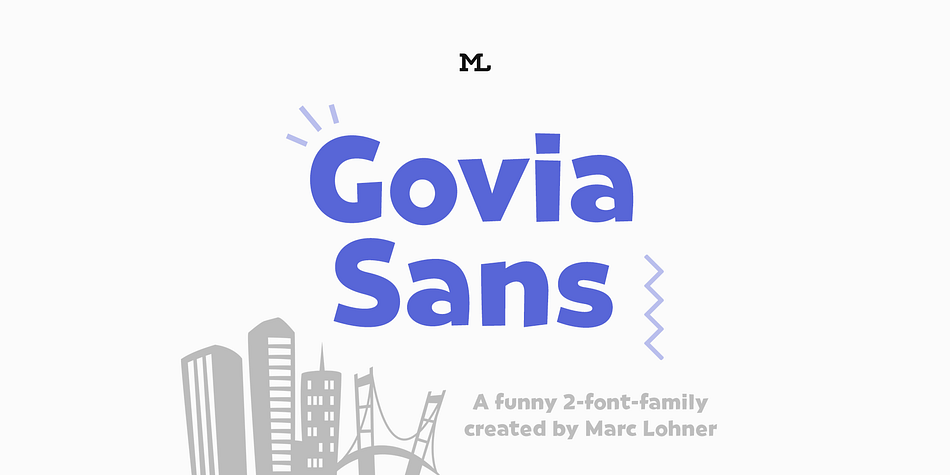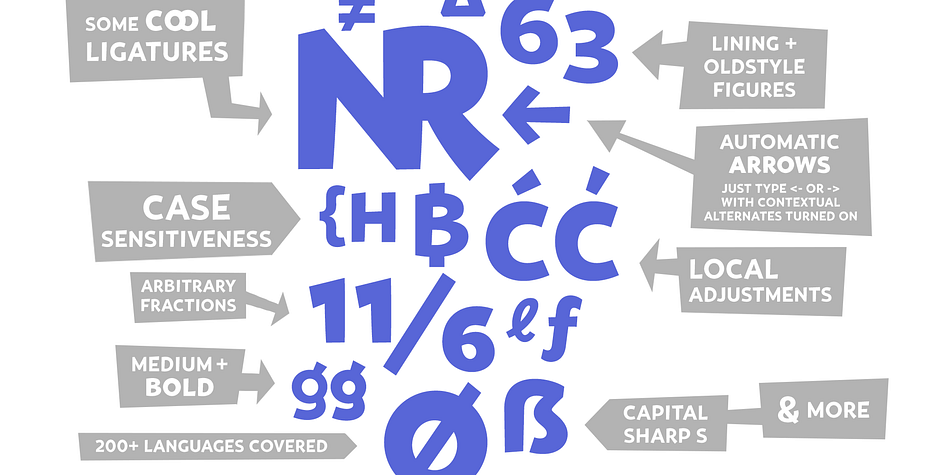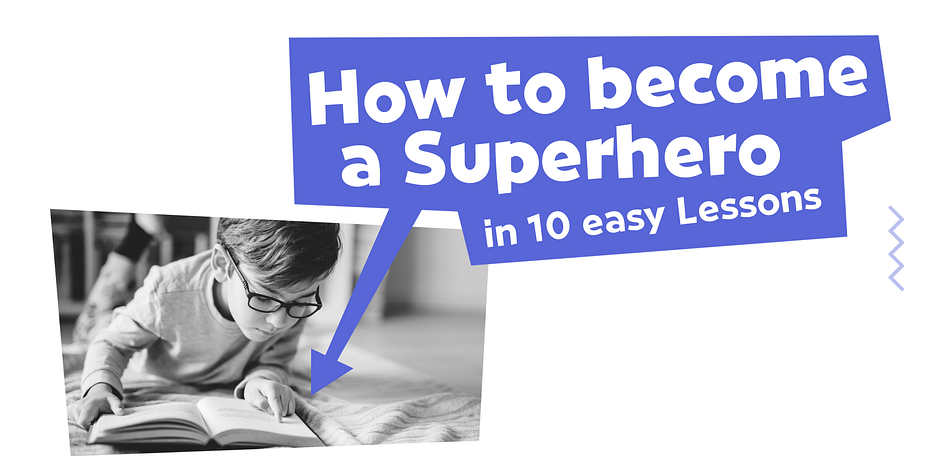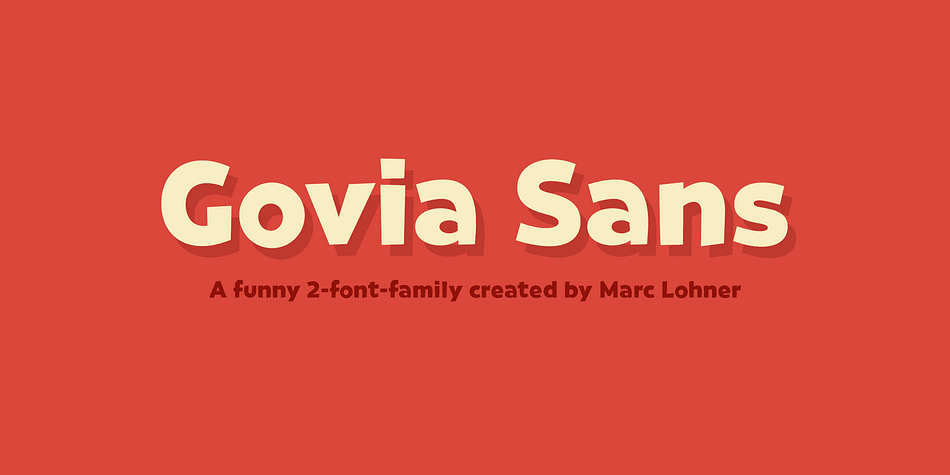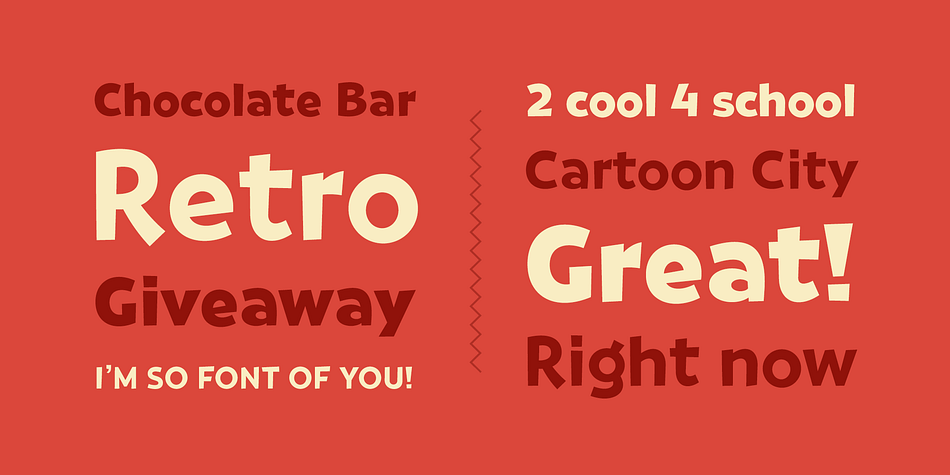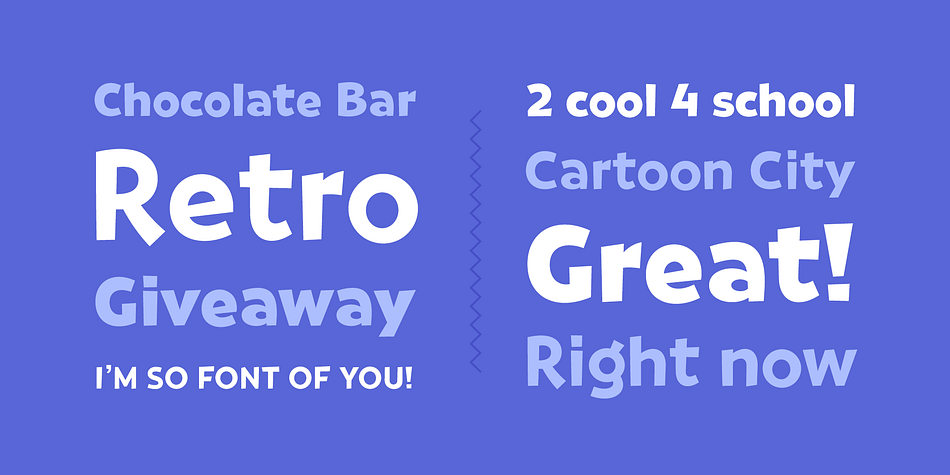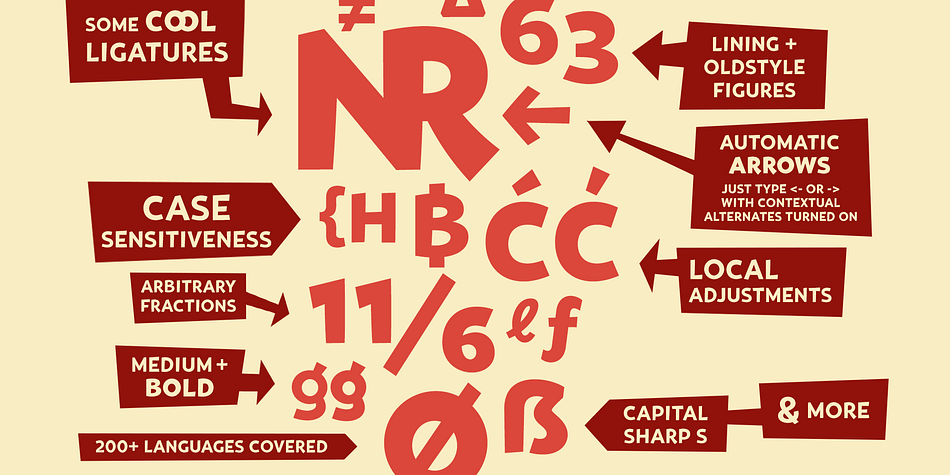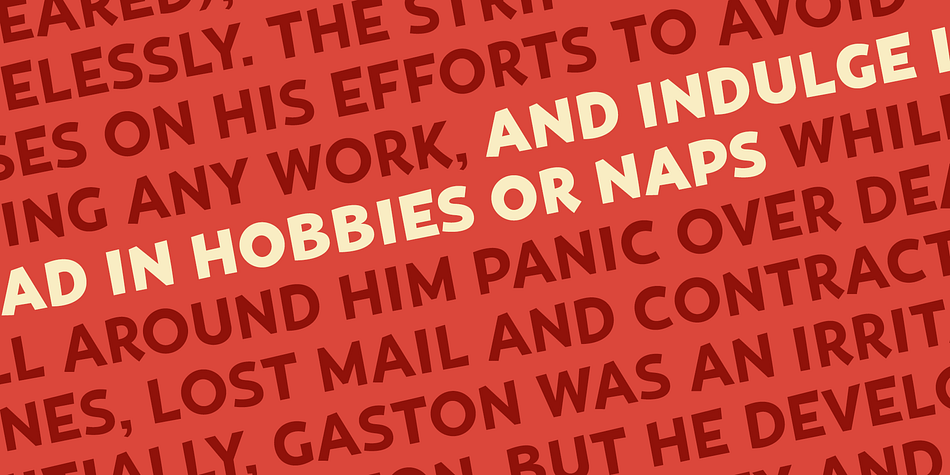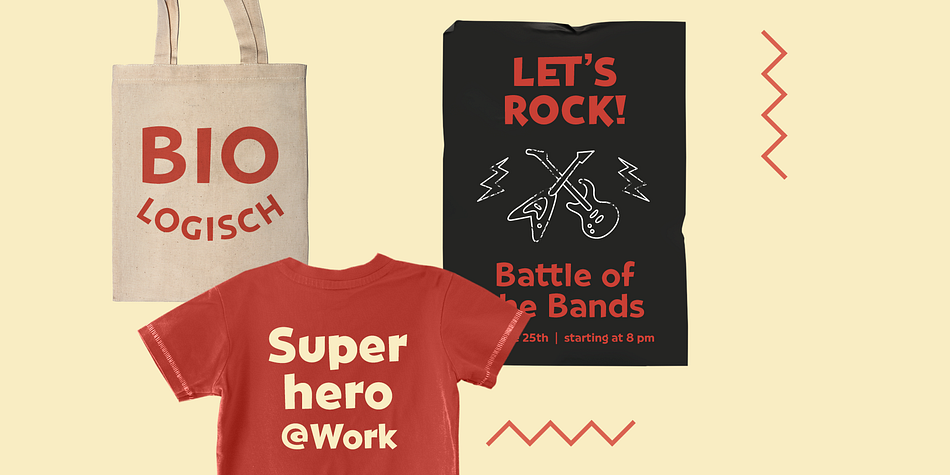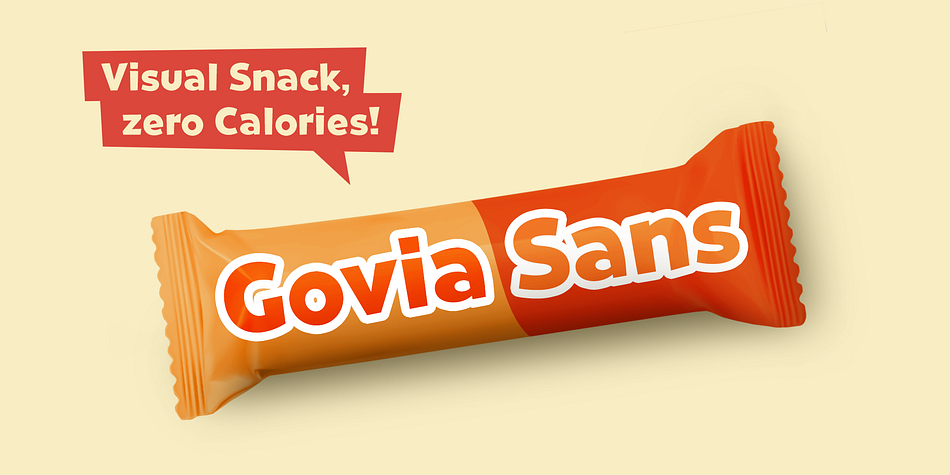
Designed by Marc Lohner, Govia Sans is a comic and hand display font family. This typeface has two styles and was published by Marc Lohner.
Let’s have some fun! Govia Sans adds plenty of joy to any logo, layout or UI. Geometric shapes and a funny look come together in this font family – thus, Govia Sans might be the perfect choice for toys, books, packaging designs, movieposters and many more.
Although the fonts’ comic character shines through in every glyph, it keeps a surprising degree of legibility even in small sizes. Choose between a Medium and a Bold weight.
Designed by Marc Lohner, Govia Sans speaks more than 200 languages. Funny ligatures, arrows, oldstyle figures and many more features will fulfill all your typographic needs.